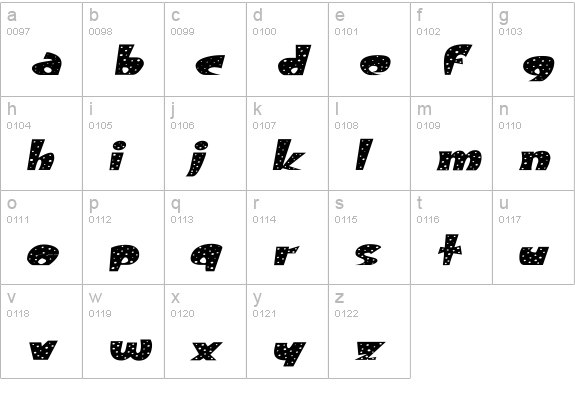
FreckleExtended Oblique Font Details
FreckleExtended Oblique is a distinctive, italic variant in the FreckleExtended typeface family \xE2\x80\x94 well suited to design and typography projects.
FreckleExtended Oblique font is a modern and stylish typeface that combines elegance with a touch of playfulness. Its unique slanted design adds a dynamic flair to any design project, making it perfect for titles, headers, and branding materials. The flowing curves and distinct features of FreckleExtended Oblique font make it stand out from the crowd and give your text a sense of sophistication. What sets FreckleExtended Oblique font apart is that it is not only visually appealing but also versatile and easy to read. Whether you're creating a logo, poster, or website, this font will add a touch of creativity and personality to your work. And the best part? FreckleExtended Oblique font is available for free download at FontsMarket.com. So you can enjoy using this stunning typeface in your projects without any cost. Don't miss out on the opportunity to enhance your designs with the unique charm of FreckleExtended Oblique font. Download it today and let your creativity shine!